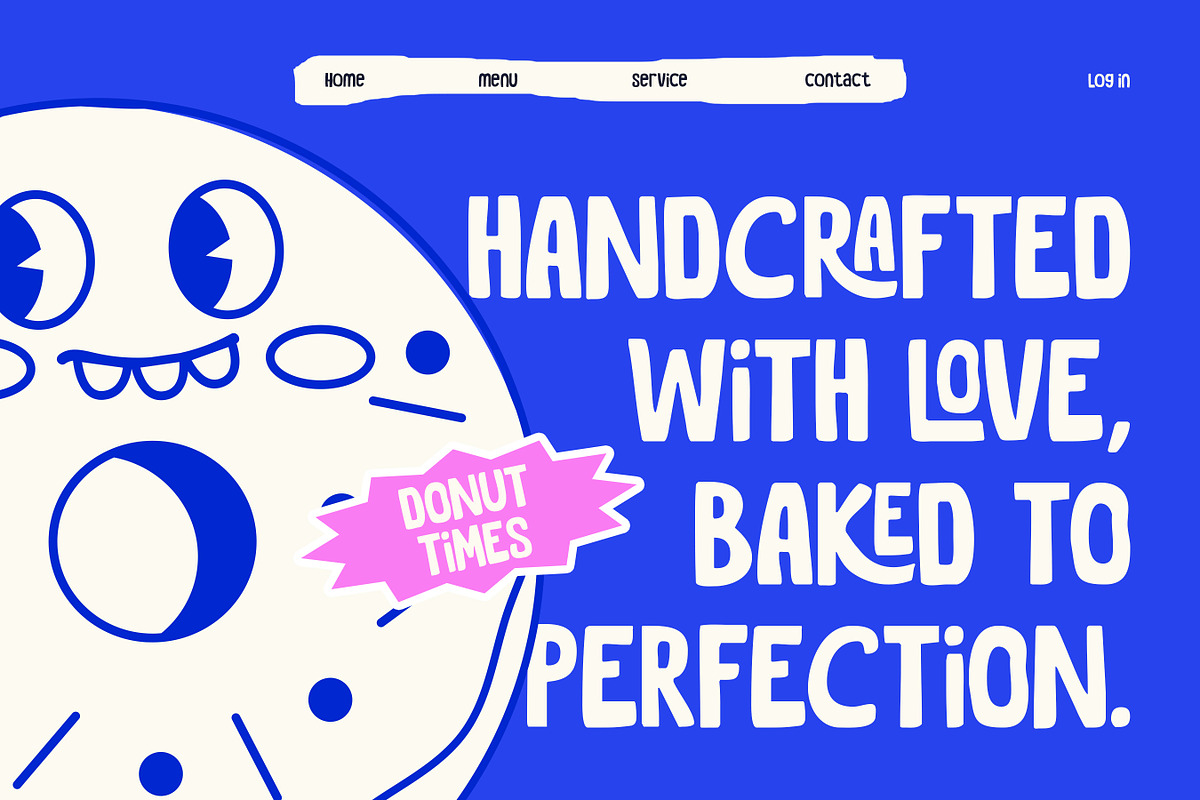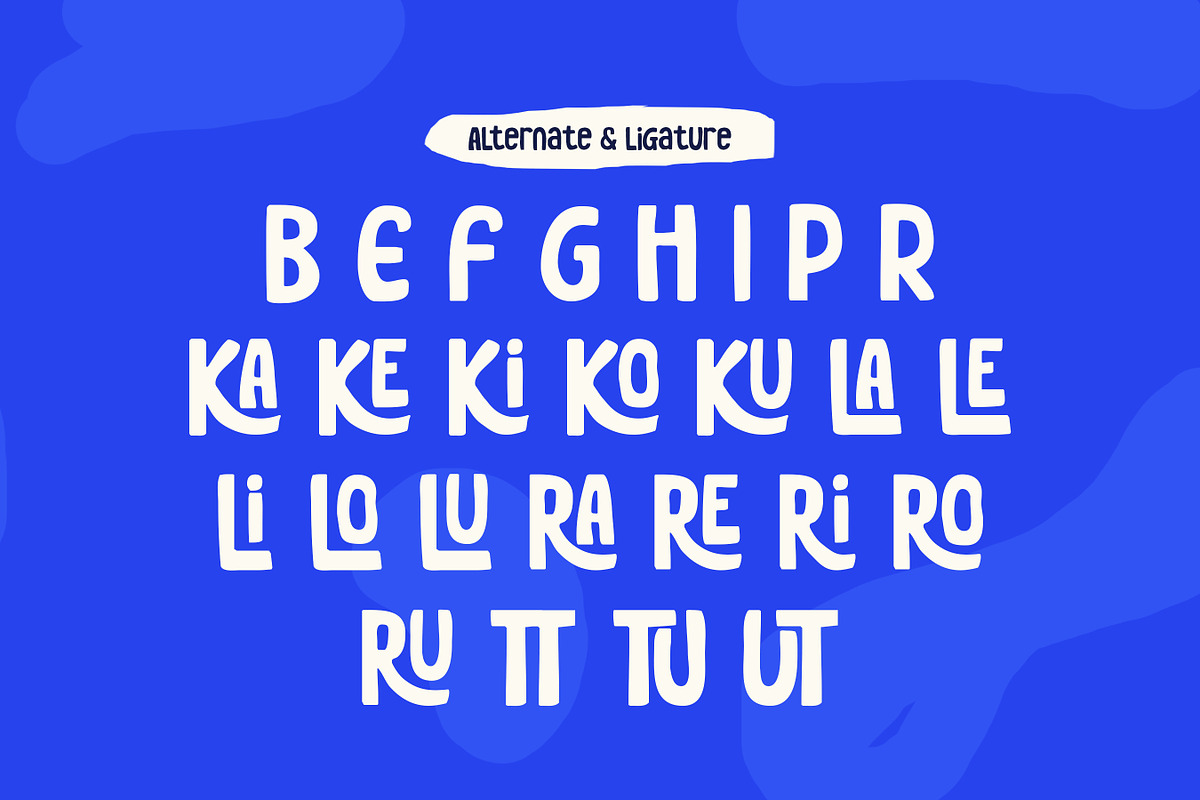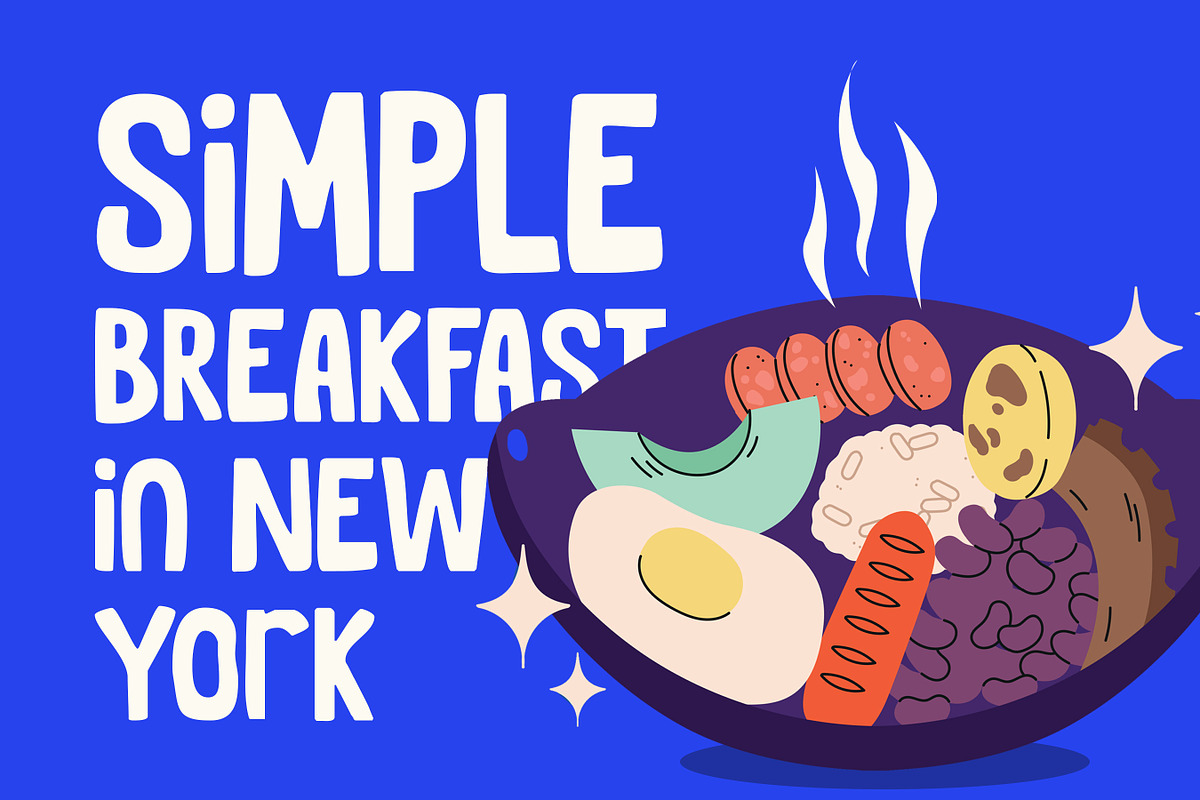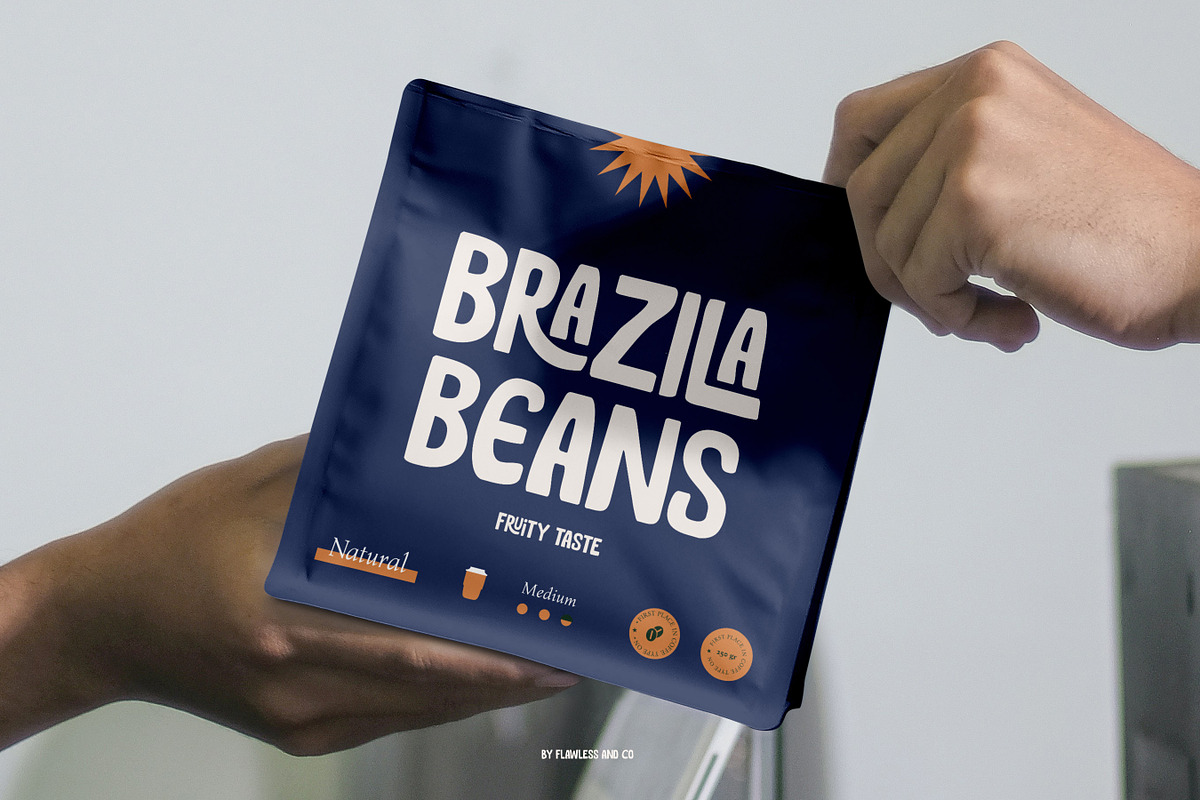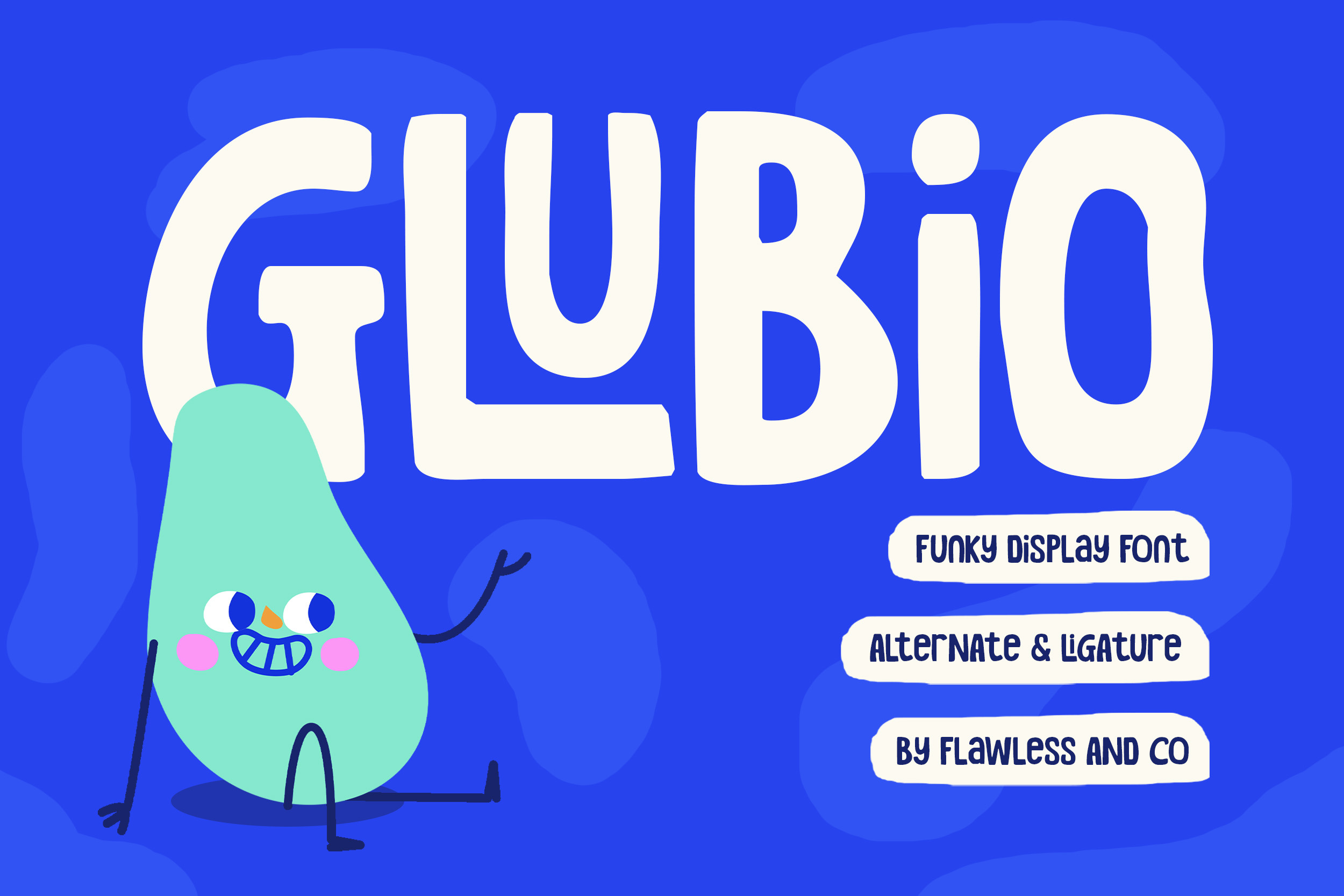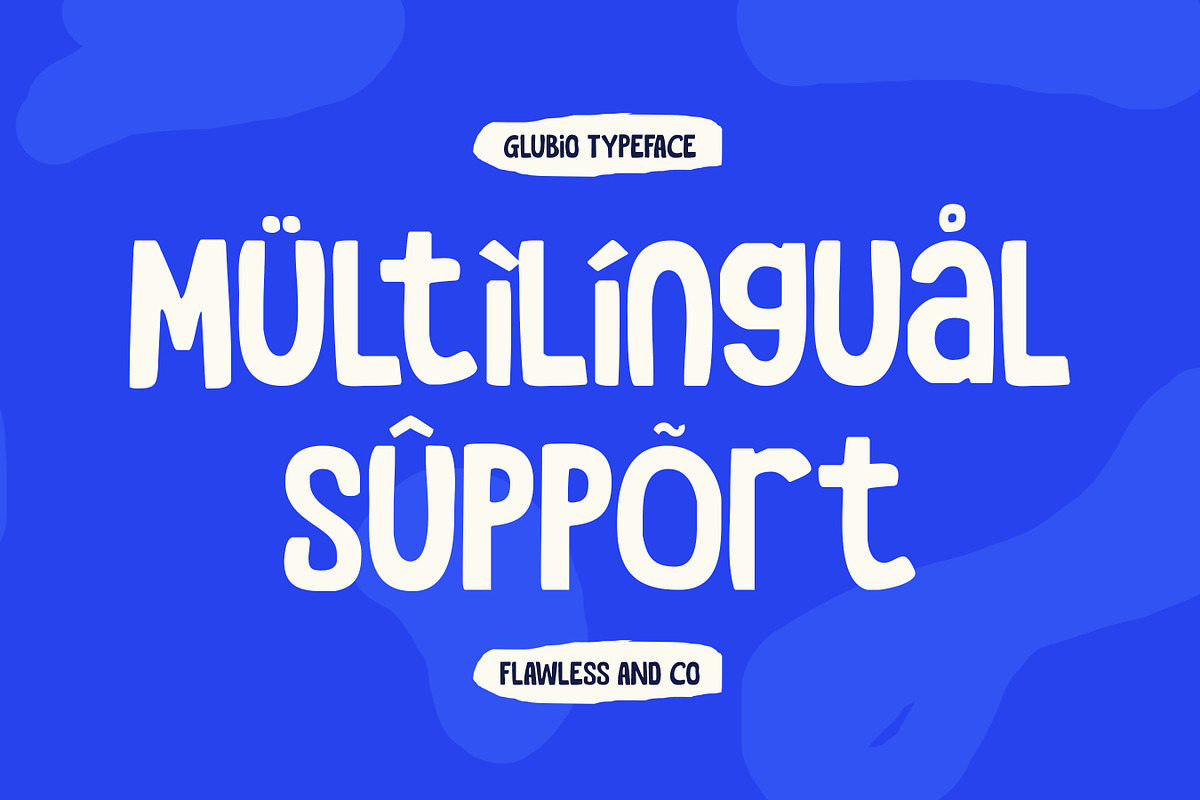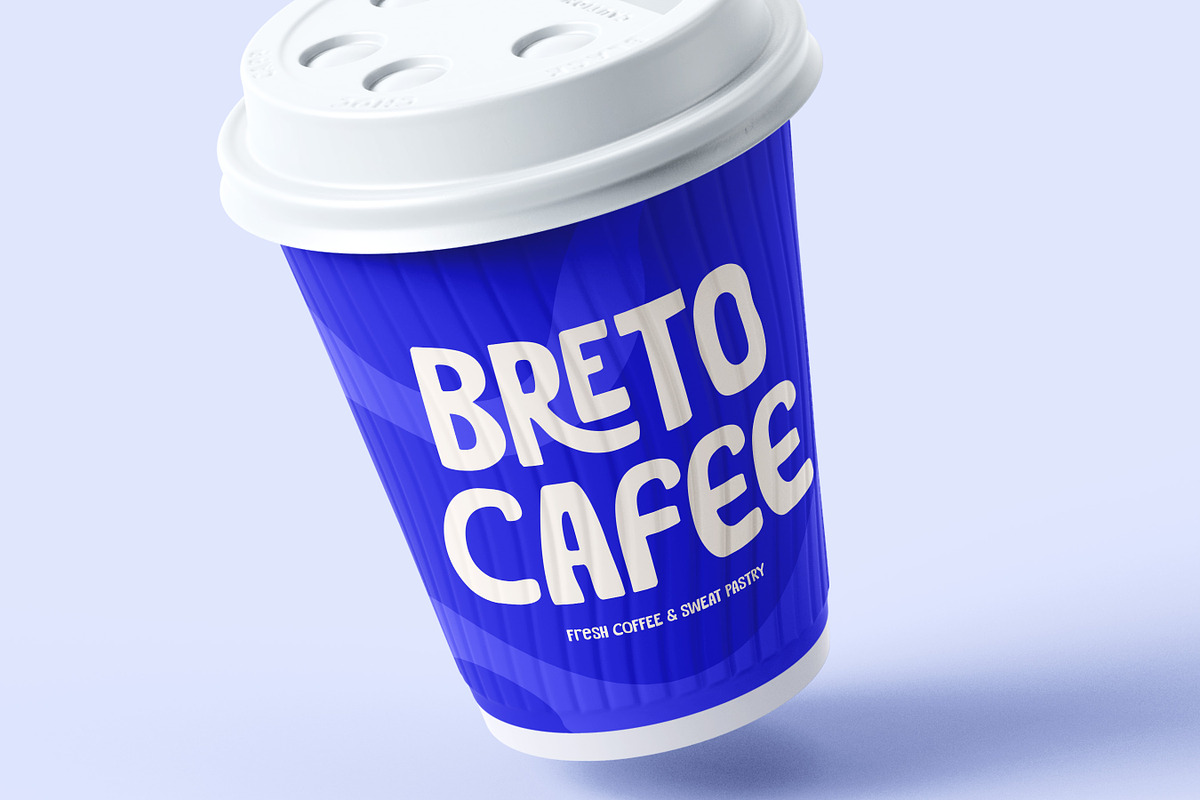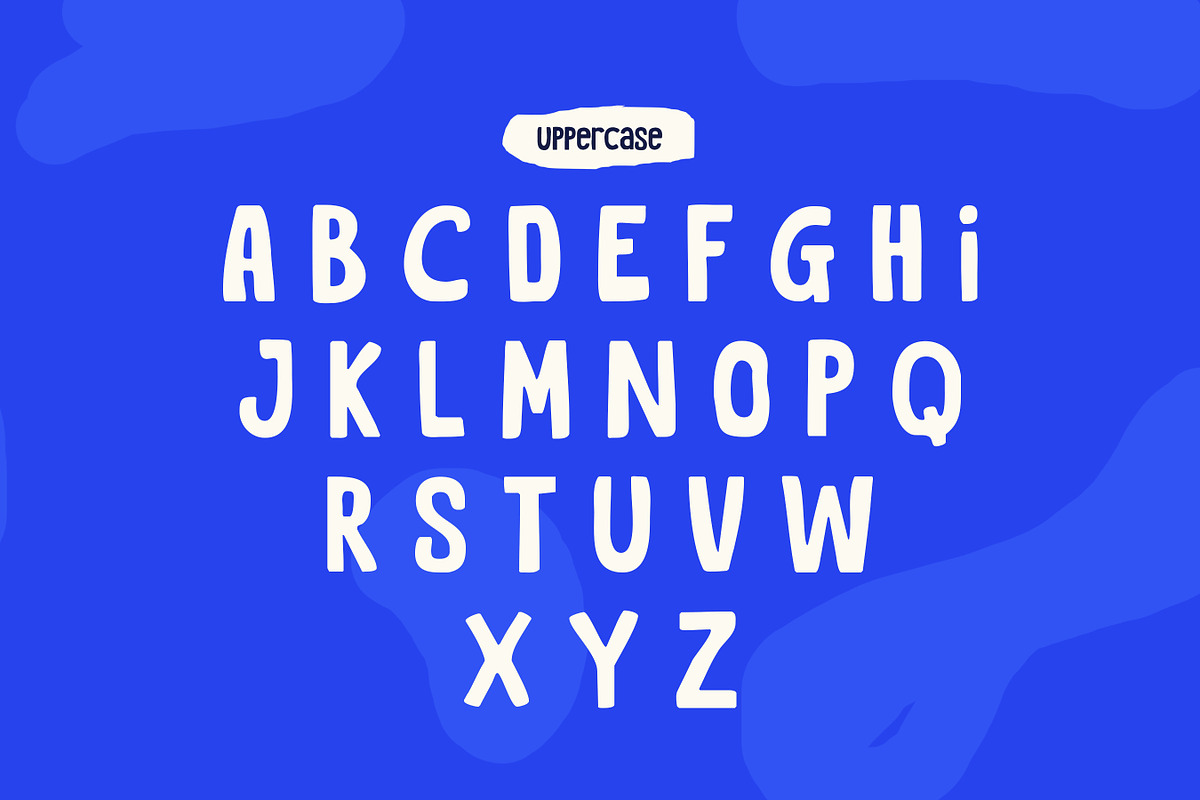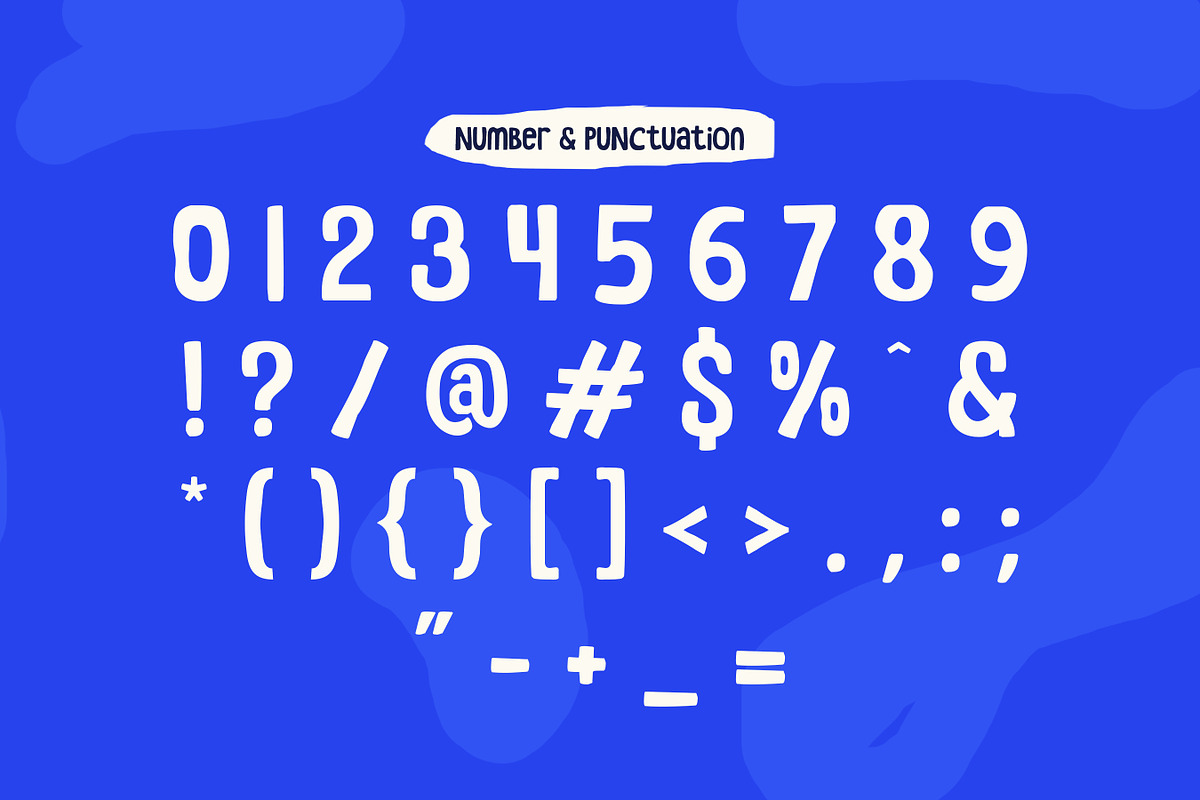
Glubio - Funky Display Font
Glubio is a bold and playful display font created to bring joy, creativity, and vibrant personality into your designs. Featuring unconventional letterforms, groovy curves, and expressive details, Glubio captures the spirit of fun and imagination while delivering a strong visual impact. Every character is crafted to stand out, making your headlines, logos, and branding projects feel energetic and unforgettable.
Inspired by playful design trends and funky typography styles, Glubio adds a cheerful and dynamic touch to any creative project. Its unique appearance makes it ideal for brands and designers looking to create visuals that feel friendly, colorful, and full of character. Whether you're designing packaging, promotional materials, or social media content, Glubio helps transform ordinary text into a lively visual experience.
Alternates & Ligatures
Who Should Use Glubio?
Glubio is perfect for designers, creative brands, content creators, and entrepreneurs looking for a display font with a fun and distinctive personality. It’s especially suitable for projects that require playful typography, bold visual appeal, and a memorable brand presence.
Suitable For:
Creative branding and logo design
Snack and beverage packaging
Kids and family-oriented brands
Festival and event promotions
Poster and advertising materials
Merchandise design
Playful display typography